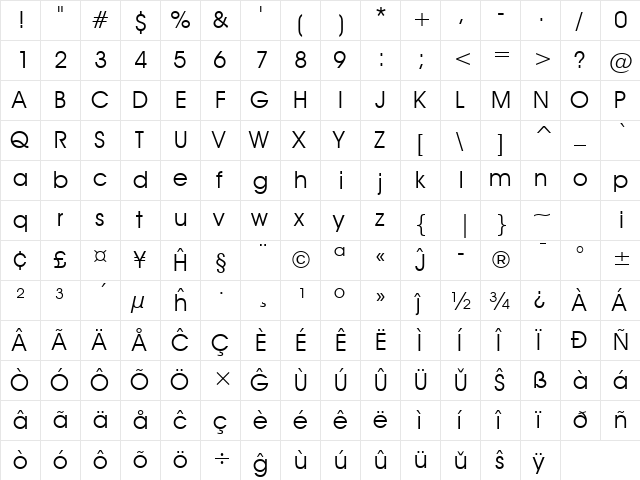
AvantGarde Bk BT Eo Book Font Preview
AvantGarde Bk BT Eo Book
Design Context for AvantGarde Bk BT Eo Typeface
AvantGarde Bk BT Eo takes a measured approach to typography — its balanced proportions and neutral character make it a reliable workhorse for both digital and print work.